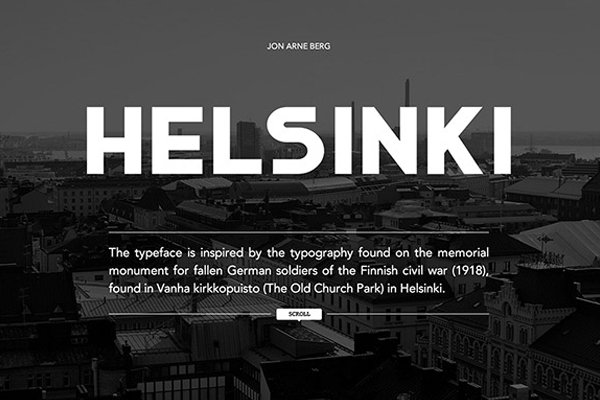
Helsinki Font
This is the FREE Helsinki Font by Jon Arne Berg which is a font inspired by the font used to inscribe upon the tombstones of fallen German soldiers during the Finnish Civil War of 1918.